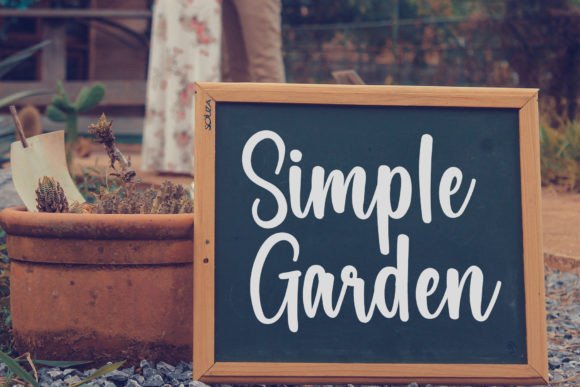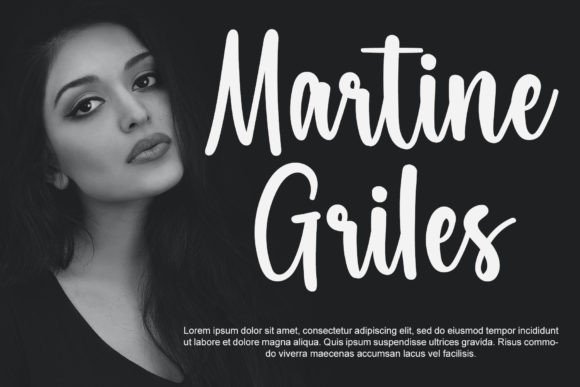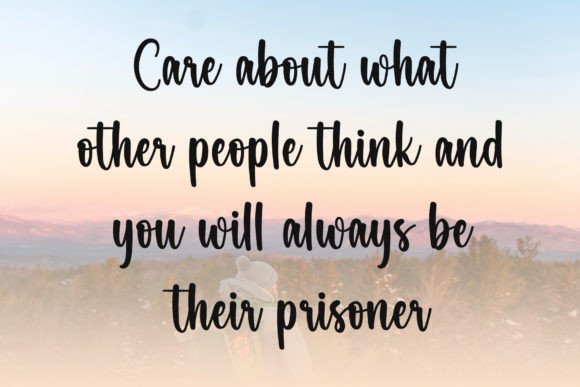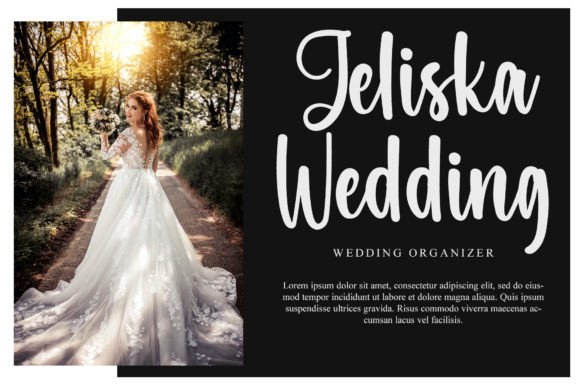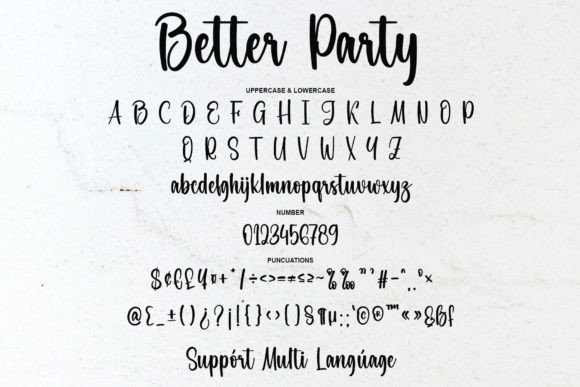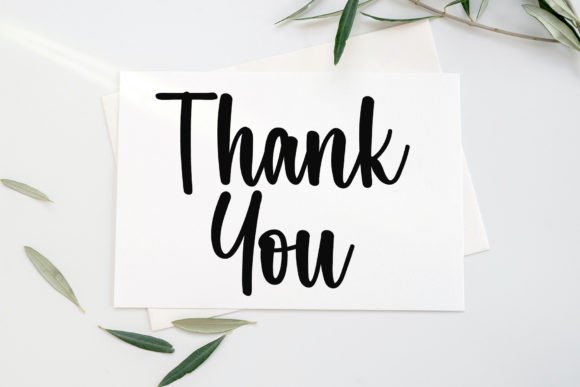
Getting Ready to Party with Fonts
There’s nothing quite like the feeling of creating something from scratch – a spark of inspiration that ignites a passion project. For many designers, it starts with the perfect font, the one that brings a vision to life. For me, that font is the Better Party Font, a delicate and elegant handwritten font that’s perfect for making a lasting impression.
Whether you’re designing a wedding invitation, a birthday card, or a party flyer, the Better Party Font is a timeless choice that’s sure to elevate your project. Its flowing style and intricate details make it a valuable addition to any designer’s toolkit. With its PUA encoding, accessing all the glyphs and swashes is a breeze, giving you endless possibilities for creativity.
Better Party Font Key Features
• Font Family: Better Party Font offers a unique and playful font family with 8 styles, including Regular, Bold, Italic, and Bold Italic.
• Unique Characteristics: The Better Party Font features a hand-drawn, whimsical design with intricate details and a touch of elegance, perfect for creating eye-catching party invitations, social media graphics, and more.
Designer Review: Better Party Font
Overall, I have mixed feelings about the Better Party Font. While it has some great features, it also falls short in a few areas.
• Fun and playful personality: The Better Party Font is perfect for creating a lively atmosphere in your design.
• Wide range of languages supported: It’s great to see a font that’s not limited to just English.
• Works well for digital use: The Better Party Font is optimized for use on screens, making it a great choice for websites and social media.
• Lack of serif options: While the font is playful, it could benefit from some serif options for more formal designs.
• Not ideal for print use: The font’s digital optimization makes it less suitable for print materials.
• Some letters may be difficult to read: Certain letters, such as ‘k’ and ‘q’, can be tricky to read at smaller font sizes.
Overall, the Better Party Font is a fun and versatile option for digital designs. However, it may not be the best choice for more formal or print-based projects.
Tips for Getting the Most Out of Better Party Font
Use Better Party Font for titles, headings, and other emphasis text.
Combine Better Party Font with other fonts for a unique and eye-catching design.
Experiment with different font sizes, colors, and styles to achieve the desired effect.
Wedding invitations and party invitations.
Event marketing materials, such as flyers and posters.
Social media graphics and advertisements.